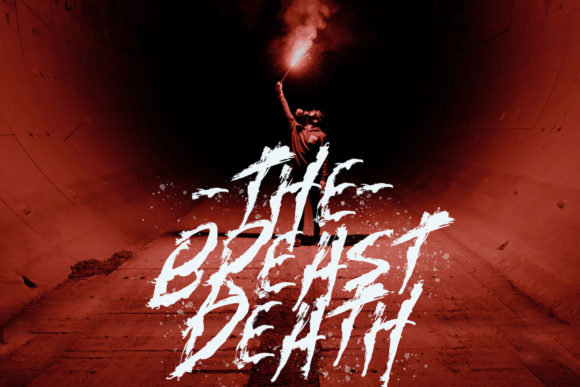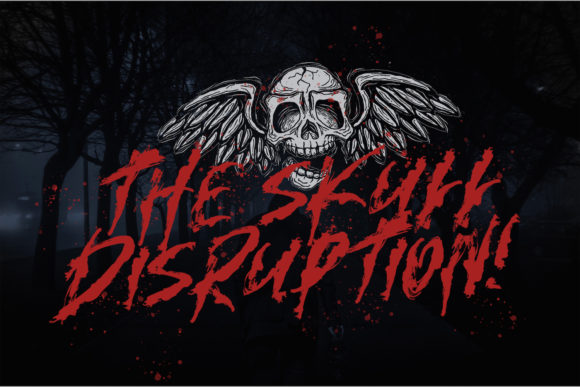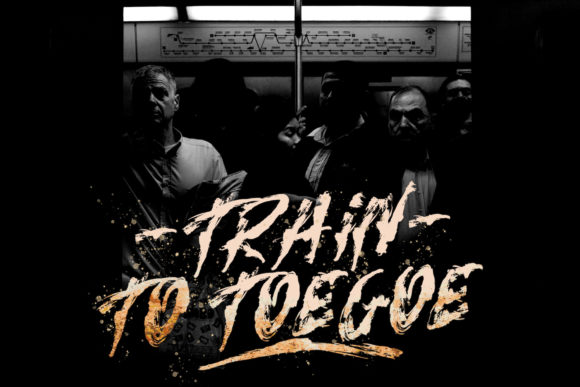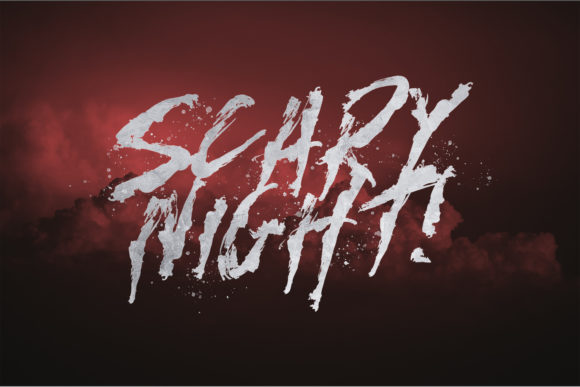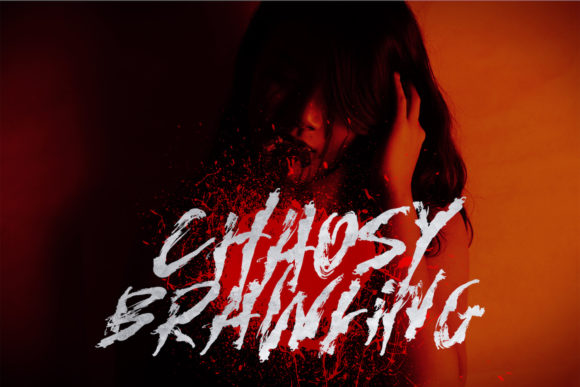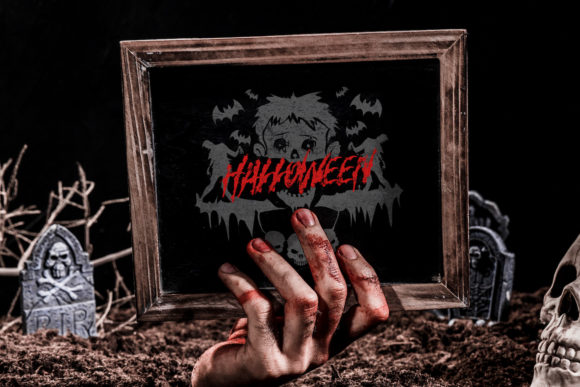
Introduction to Kosan Murah! Font
Do you remember that moment when you were working on a project, and the perfect font just slipped right out of your grasp? It’s a frustrating feeling, but one that’s all too familiar for designers. Whether you’re creating a movie poster, designing a book cover, or crafting a logo for a new brand, the right font can make all the difference. That’s why we’re excited to introduce you to the Kosan Murah! Font, a stunning display font with a horror twist that’s sure to add an extra layer of depth to your creative project.
With its unique design and decorative horror style, the Kosan Murah! Font is the perfect addition to any design resource. And the best part? It’s available for free download, complete with a transparent background for seamless integration into your design. Whether you’re a seasoned pro or just starting out, this high-quality font is sure to become a valuable asset in your design toolkit.
Kosan Murah! Font
- High-quality, professional font suitable for creative projects and design resources.
- Comes with a transparent background, allowing for easy customization and versatility.
- Designed with a modern aesthetic, making it perfect for contemporary design projects.
Honest Review: Kosan Murah! Font
As a designer, I’m always on the lookout for high-quality design resources that can elevate my creative projects. Recently, I stumbled upon the Kosan Murah! Font, and I’m excited to share my thoughts on it.
- Unique and modern design style that adds a touch of elegance to any project.
- Supports various languages, including Indonesian, making it a great option for designers working on projects with non-English content.
- Transparent background option allows for easy layering and customization.
- Only available in a few font weights, which may limit its versatility in certain design projects.
- Not ideal for use in large block of text, as the font can become difficult to read.
Overall, I’m impressed with the Kosan Murah! Font’s unique design style and high quality. While it has some limitations, it’s a great addition to any designer’s toolkit, especially for free.
Kosan Murah! Font
Kosan Murah! Font is a versatile and high-quality design resource ideal for various creative projects. This font features a transparent background, making it suitable for use on any background color or image.
Tips for Getting the Most Out of Kosan Murah! Font
To get the most out of Kosan Murah! Font, use it for headings, titles, and other emphasis text. You can also experiment with different font sizes and colors to create visually appealing combinations.